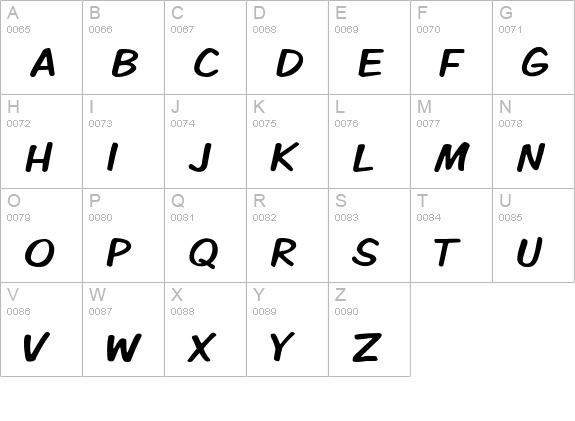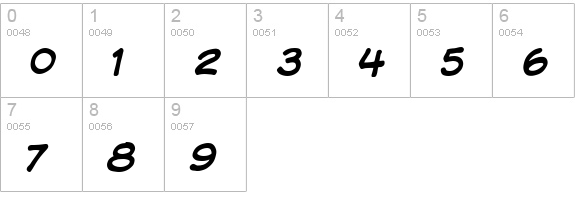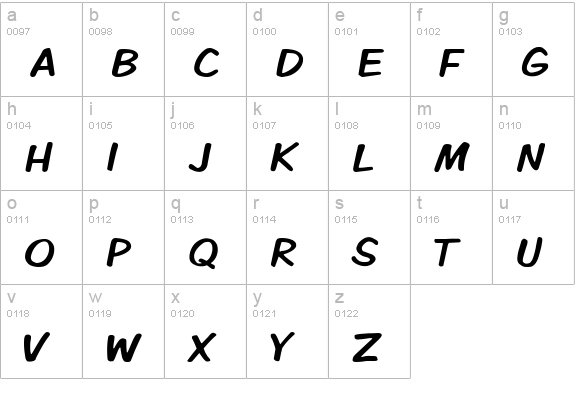
VTCKomixationCaps font is a whimsical and playful typeface that will add a touch of fun to any project. With its quirky and animated letterforms, this font captures the essence of comic books and cartoons. Each character is carefully crafted to bring out the essence of hand-drawn art, giving your designs a unique and lively appeal. The VTCKomixationCaps font is perfect for creating eye-catching headlines, book covers, posters, and logos that demand attention. Its bold and charismatic nature makes it ideal for projects aimed at capturing the imagination of both children and adults alike. What sets VTCKomixationCaps font apart is not just its vibrant and energetic design, but also the fact that it is free to download. Yes, you heard that right! You can freely access this font at FontsMarket.com, where you can unleash your creativity without any cost. Whether you are a professional designer or an aspiring artist, this font is a valuable addition to your collection. So, why wait? Download VTCKomixationCaps font today and let your imagination run wild. With its charming and playful disposition, this font is sure to bring a smile to everyone who sees it.